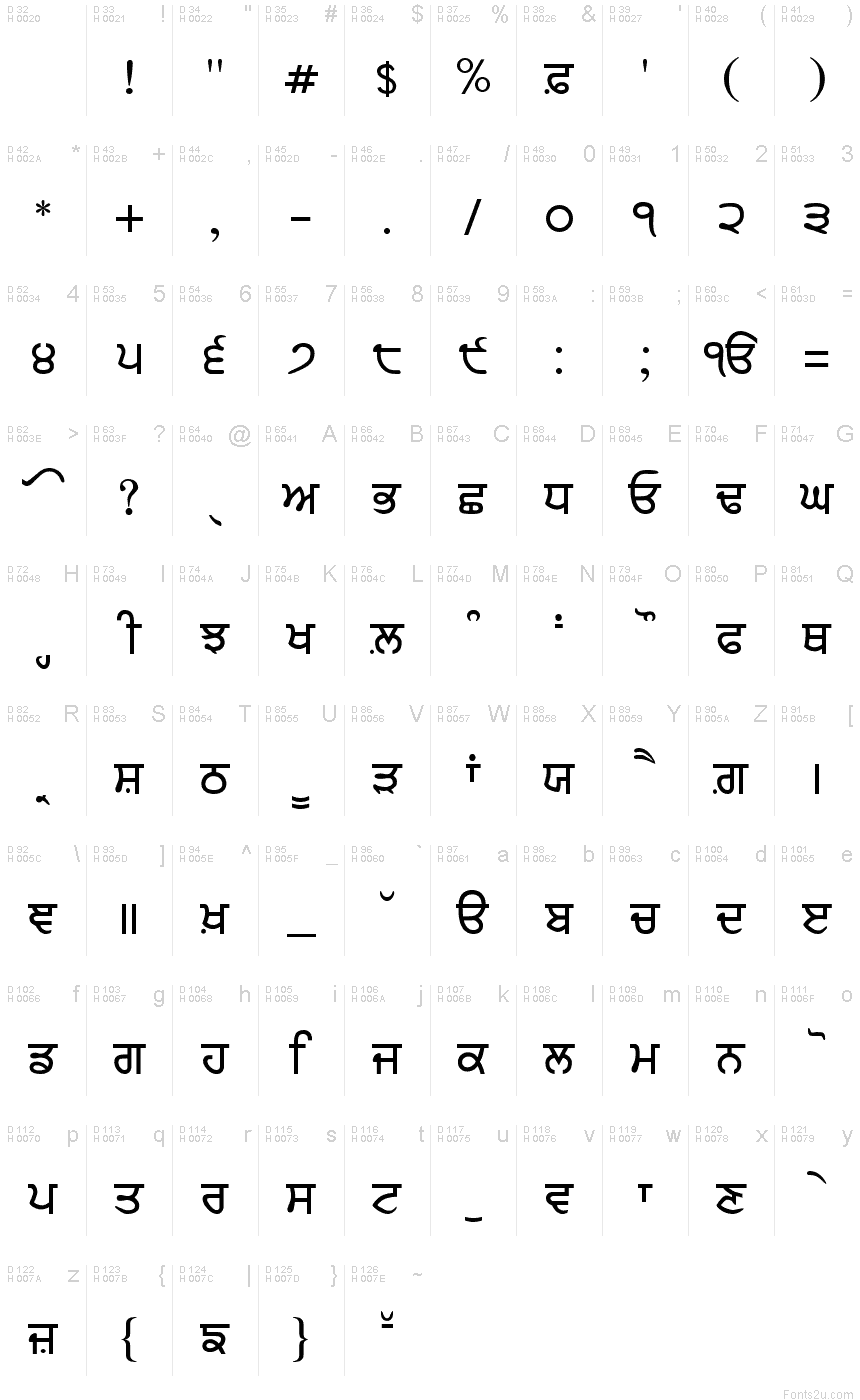
GurbaniAkhar Heavy by Kulbir S. Thind is a free Gurmukhi display font with broad rounded forms and a firm horizontal headline. Its strokes shift between substantial curves and slimmer joins, so the script remains open and flowing. Large loops and sweeping lower strokes keep the lettering lively.
Religious publishing is its clearest setting, from Gurbani booklets to event posters. It also suits cultural signage and Punjabi music artwork. The recurring loops and continuous top line can echo borders, calligraphic ornaments, and devotional illustration.